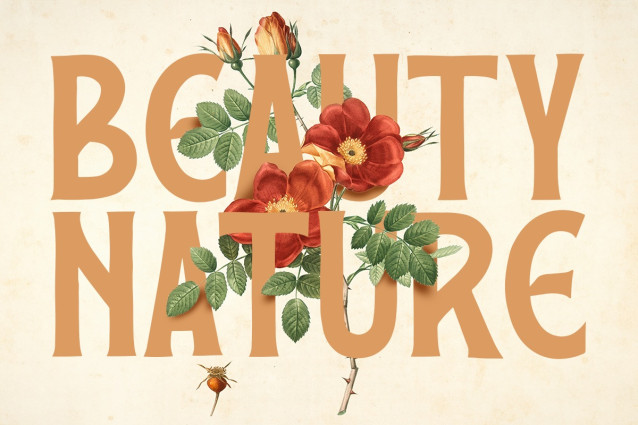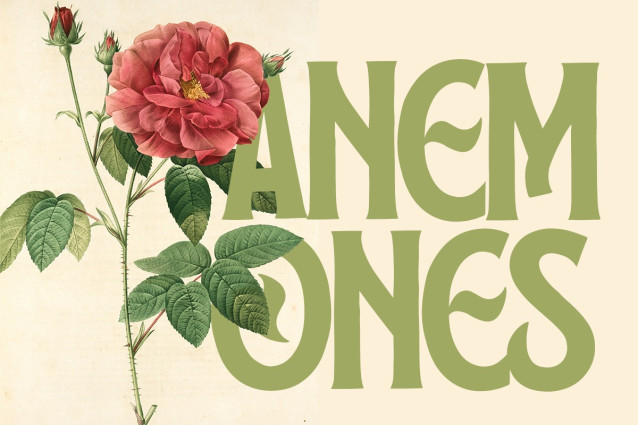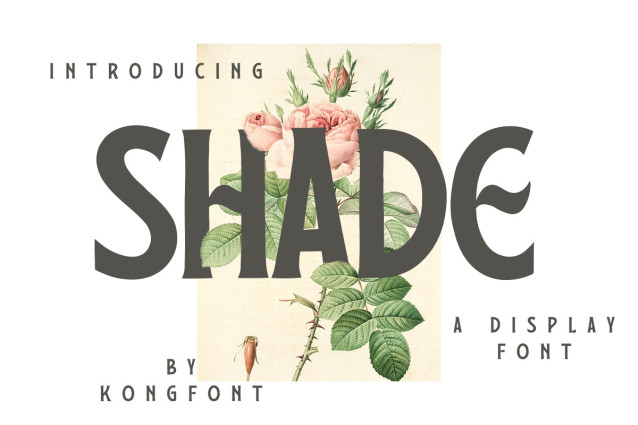
Shade Font
Shade Font is a typeface that exudes beauty and is most elegant. Easy to read yet artistic, this font can serve multiple uses depending on the user. In the large and small text, this font is legible and reaching. Shade A Modern Display Font is a modern font and stylish font. Shade A Modern Display Font may be used for product production, digitally and in promotions on the web and social media, as well as in printed forms such as magazines and posters. One product that can be combined with this font is fashion and beauty. Magazines that cover fashion and beauty topics can use the Shade A Modern Display Font as their cover. This font can also be used as a brand on the product packaging. This font can be applied in screen printing, both in small and large quantities. In modern business needs, Shade A Modern Display Font is also suitable for personal name cards and business signage indicating a place, such as cafes, boutiques, and makeup shops. Beauty font is one of the best fonts to use for wedding fonts and similar formal events. It can be applied to invitation cards and event banners. Our Display fonts collection is compatible for use as; Figma fonts, Canva fonts, Freepik Fonts, and Adobe Fonts. They also work as Windows Fonts and Apple Fonts. For your social media needs, you can use and install fonts in our collection of serif fonts to use as Instagram Fonts, Facebook Fonts, and Twitter Fonts.